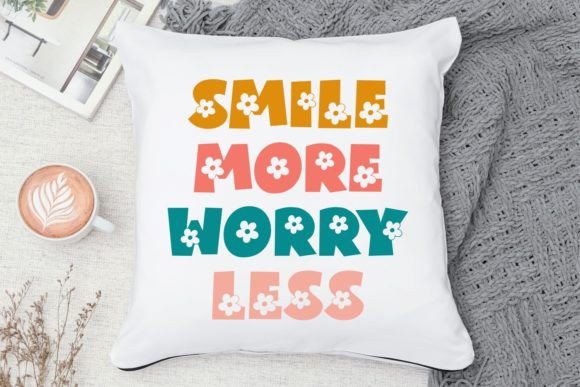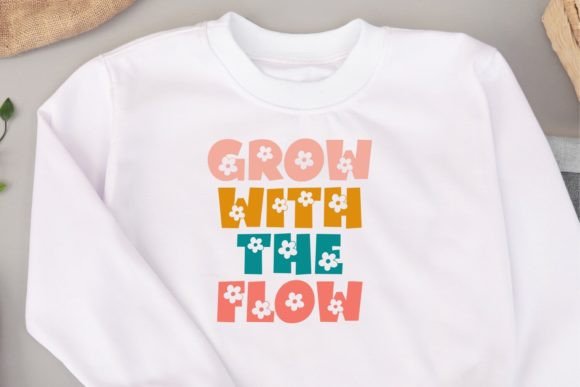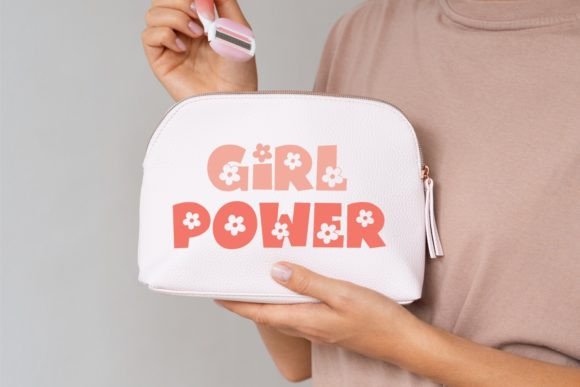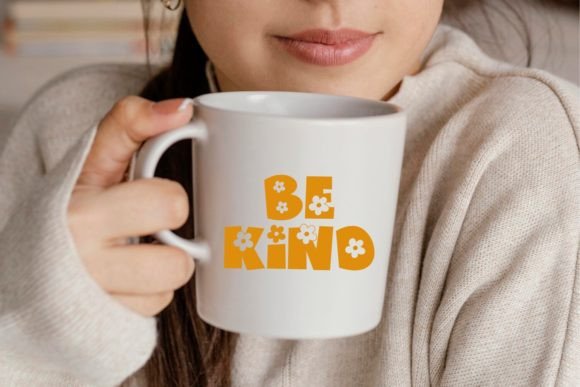
Introduction to Flower Girls Font
Unveiling “Flower Girls”, a whimsical Cartoon font that cleverly integrates floral ornamentation.
This playful and lovely font resonates with a pleasing aura that effortlessly enhances your creativity Perfect for craft enthusiasts, it brings delicate charm to your home décor projects, t-shirt designs, and sticker creations.
Key Features of Flower Girls Font
Why Choose Flower Girls Font?
Flower Girls Font offers exceptional quality and versatility, making it a valuable addition to your design toolkit. Whether you’re creating for personal projects or commercial use, Flower Girls Font delivers professional results.